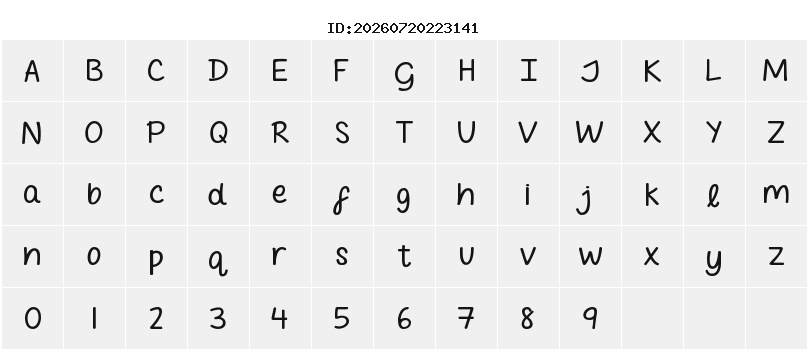
• Font Name: Follow You Into the World
• Designer: Kimberly Geswein
About Follow You Into the World.ttf
Follow You Into the World.ttf is a modern, elegant sans-serif font designed for ultimate readability and visual harmony. Perfect for branding, headlines, web design, and print materials.